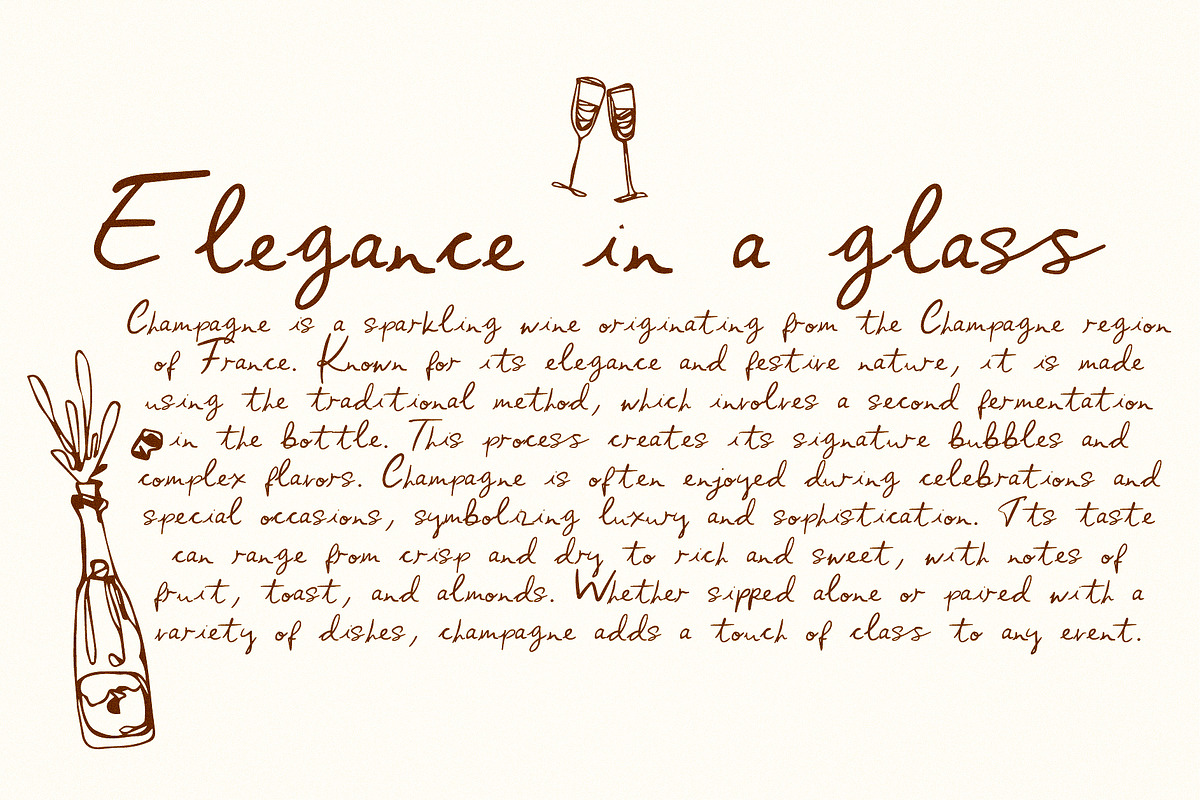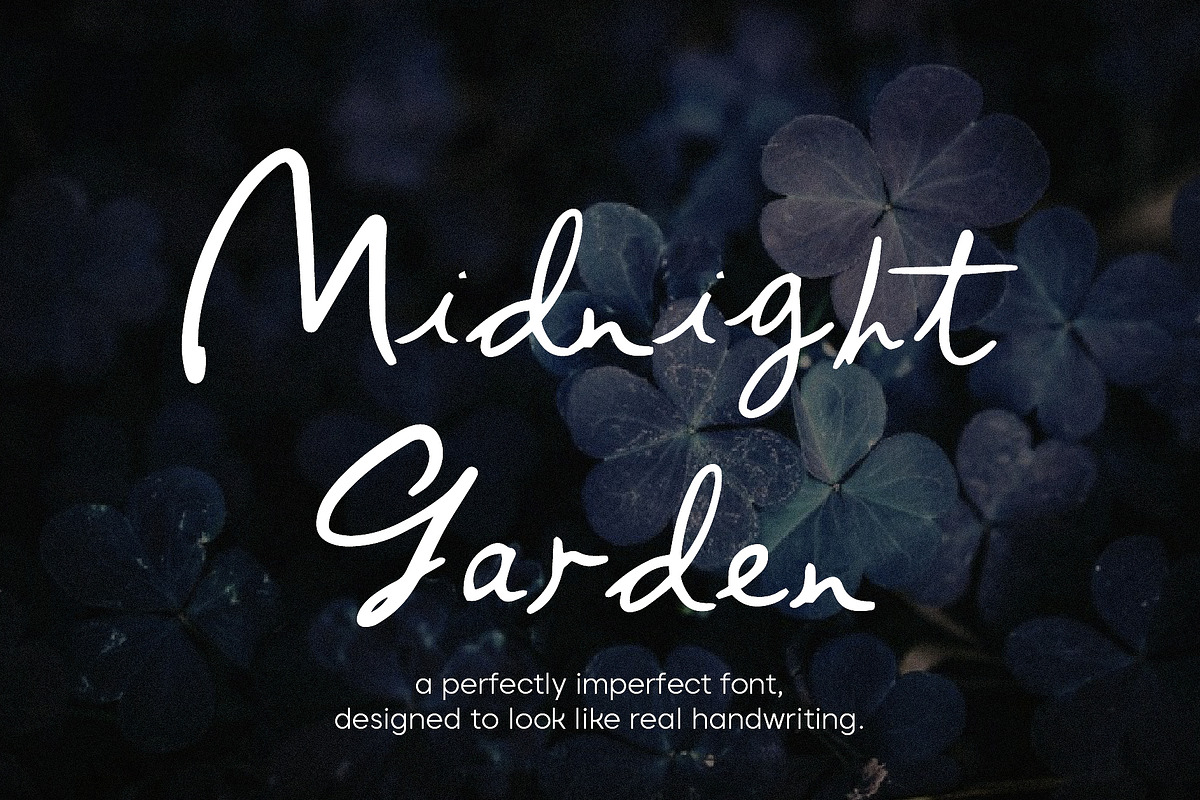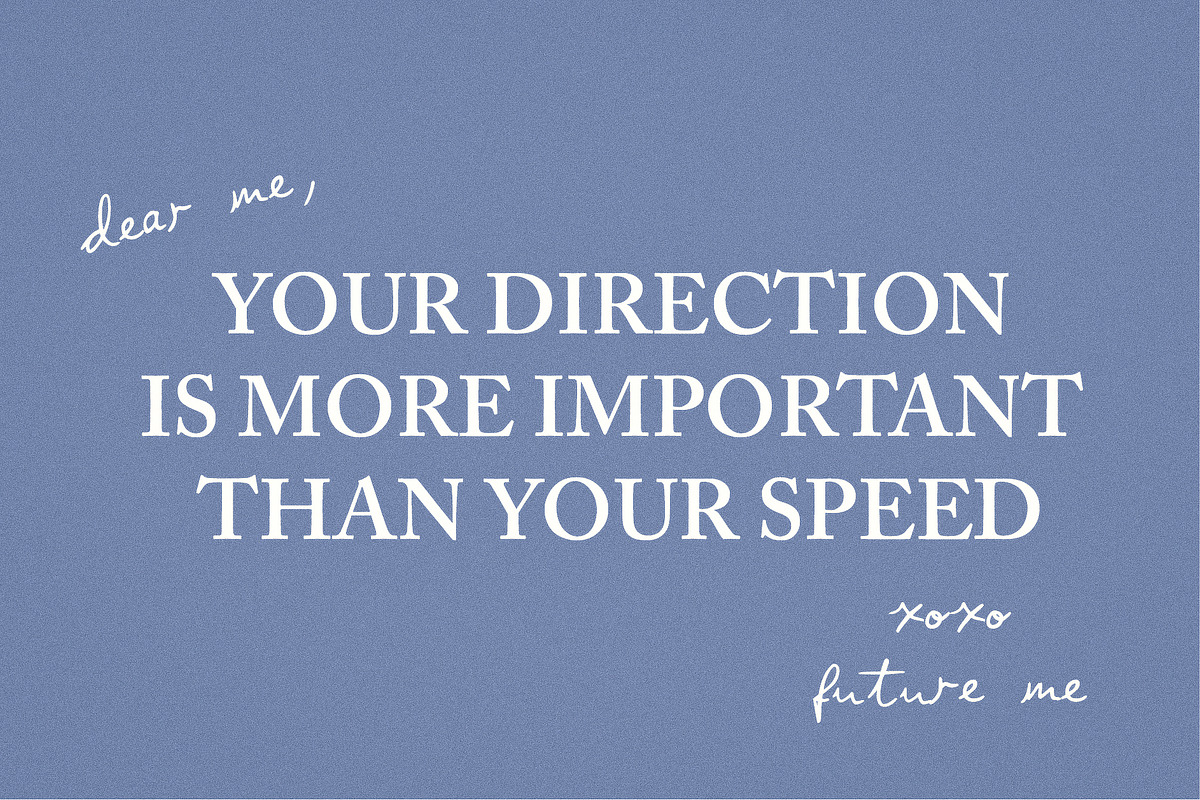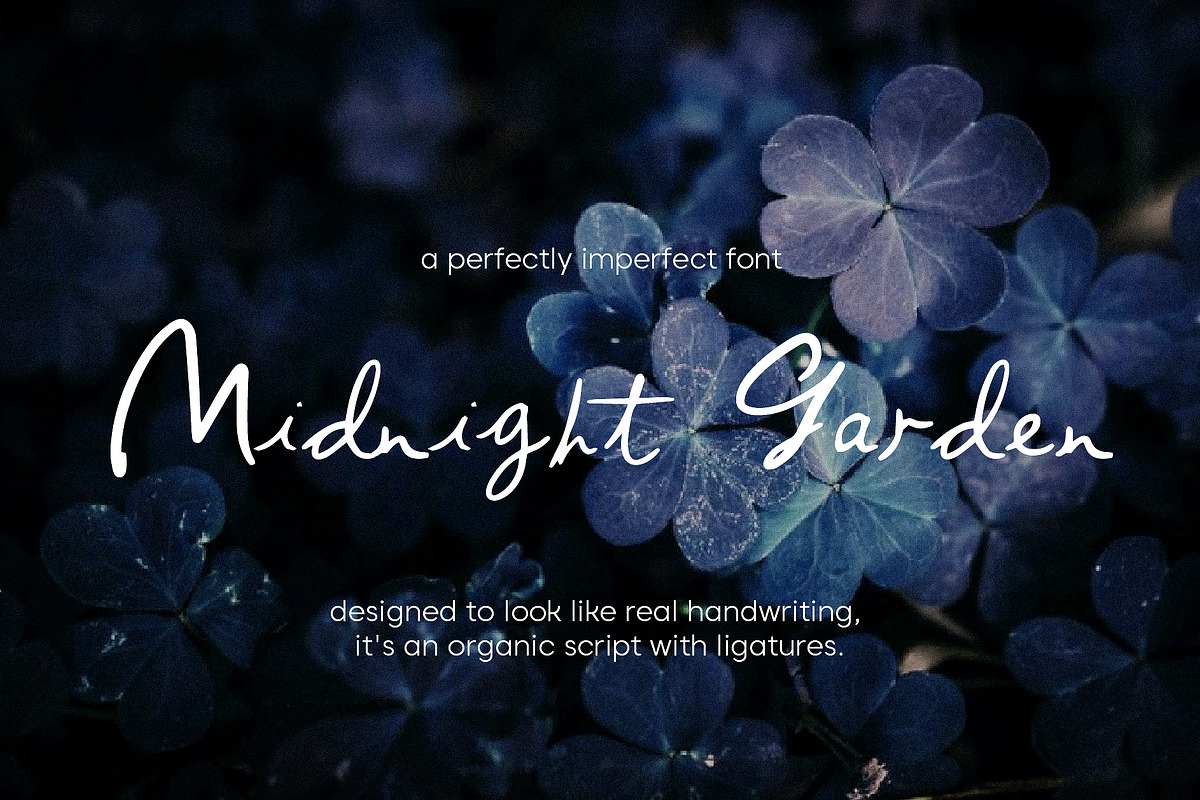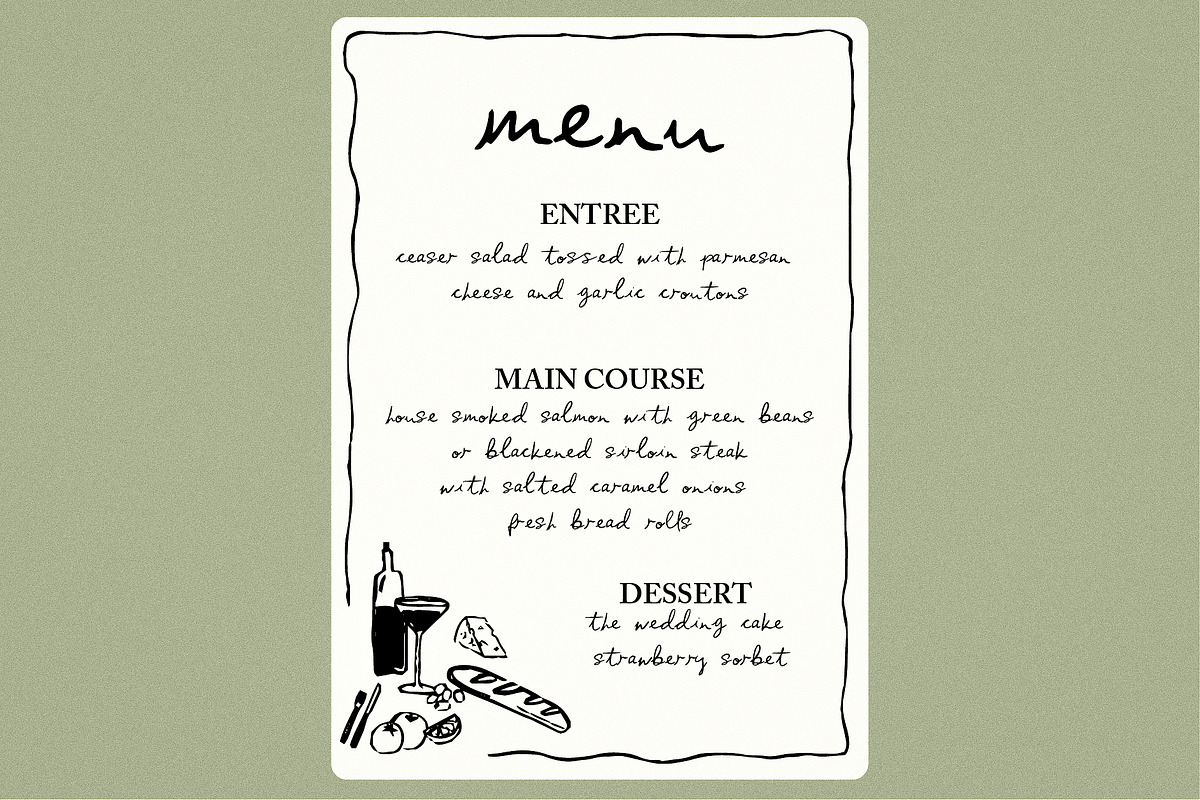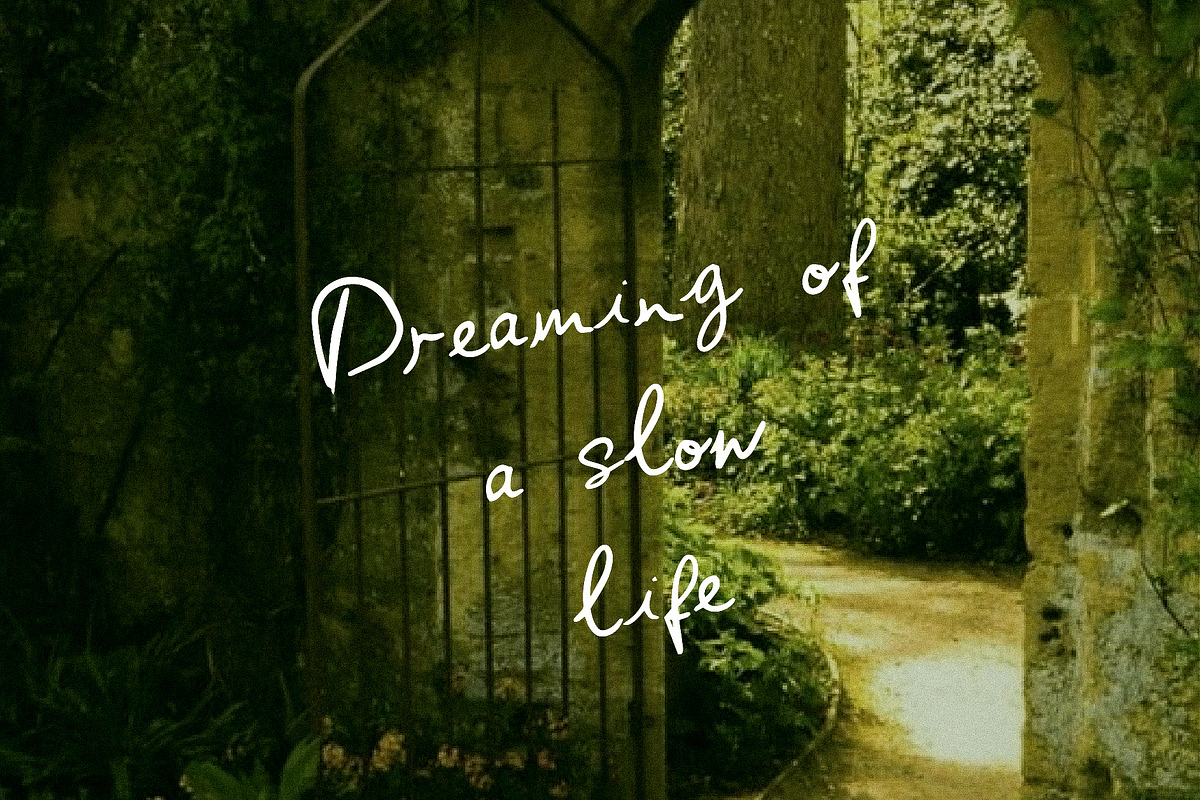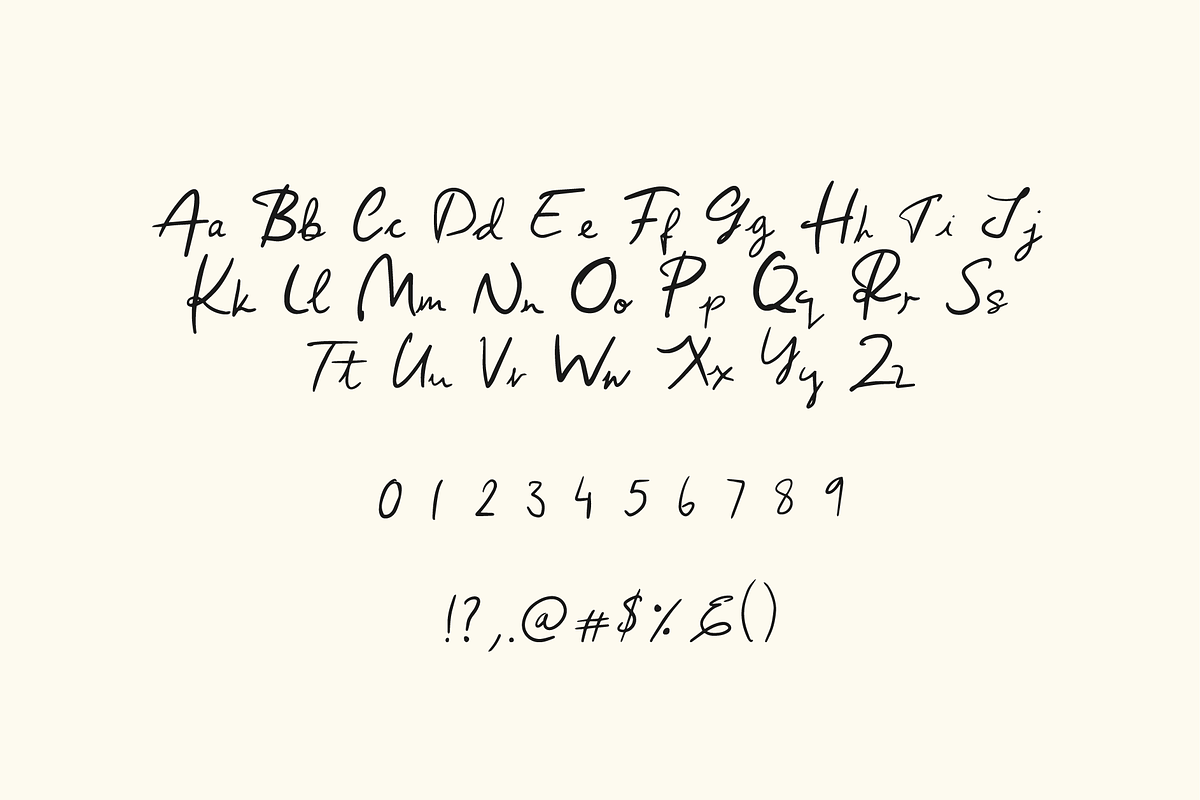
Midnight Garden Handwritten Font
Midnight Garden is a perfectly imperfect font designed to look like real handwriting. This organic script with a textured feel is perfect for greeting cards, wedding stationery, logos, modern websites, apparel design, and more.
Midnight Garden includes:
Midnight Garden Font Features:
Set of standard alphabet and punctuation